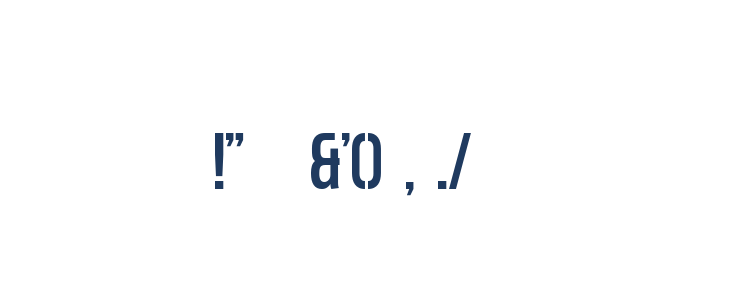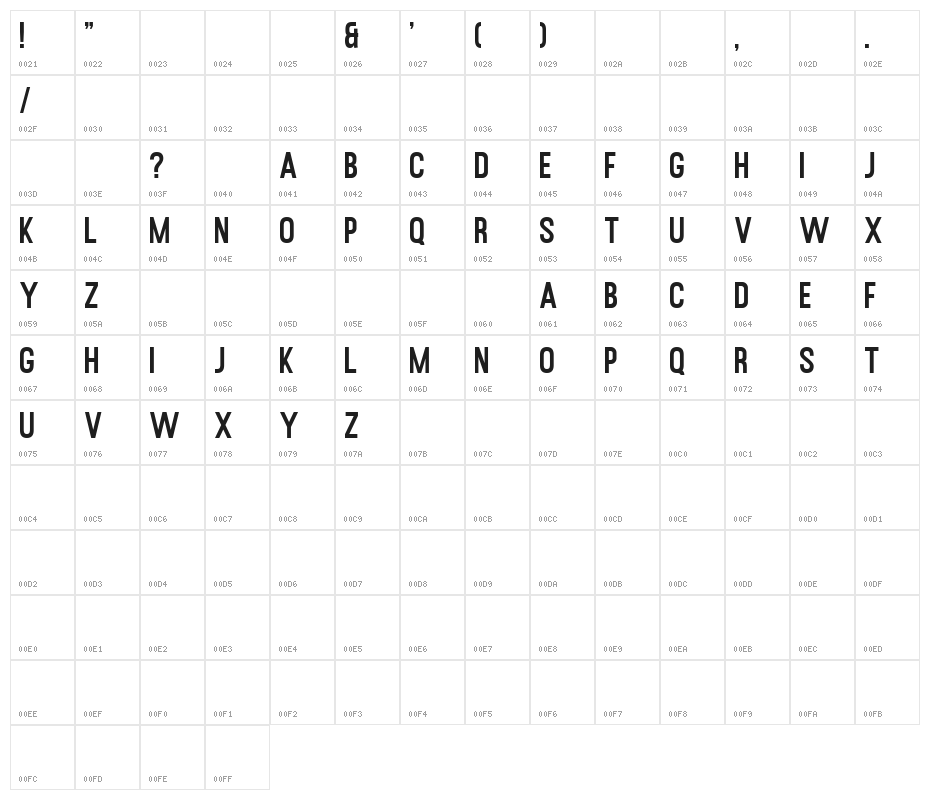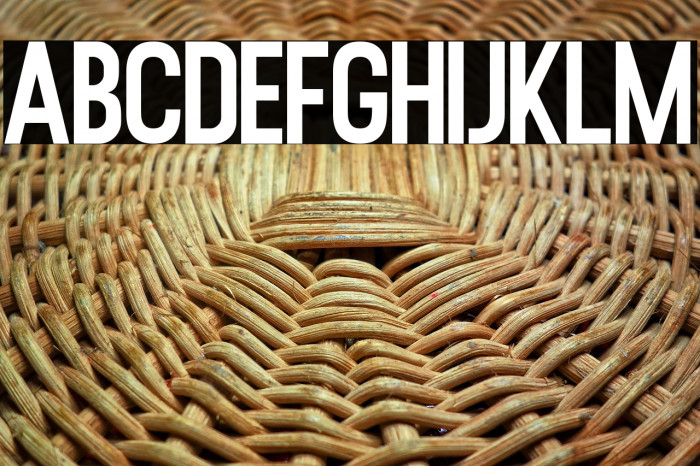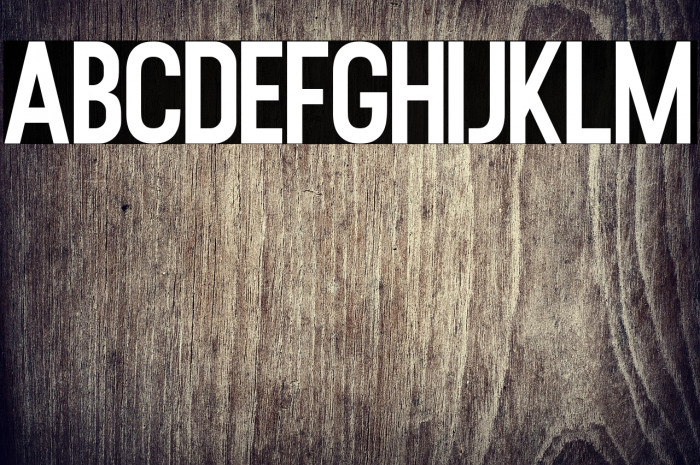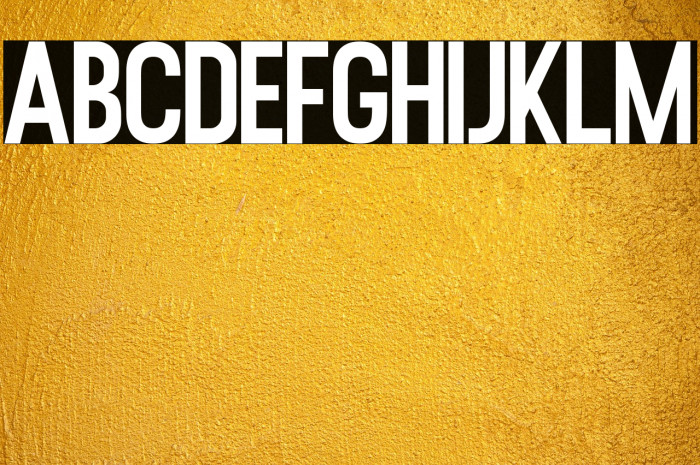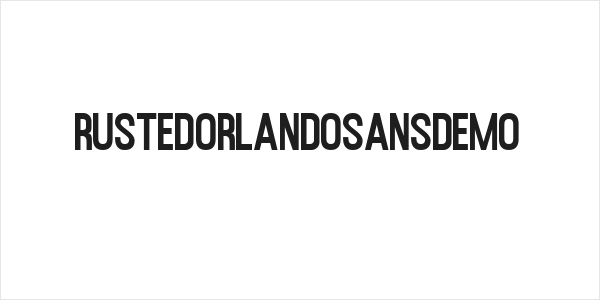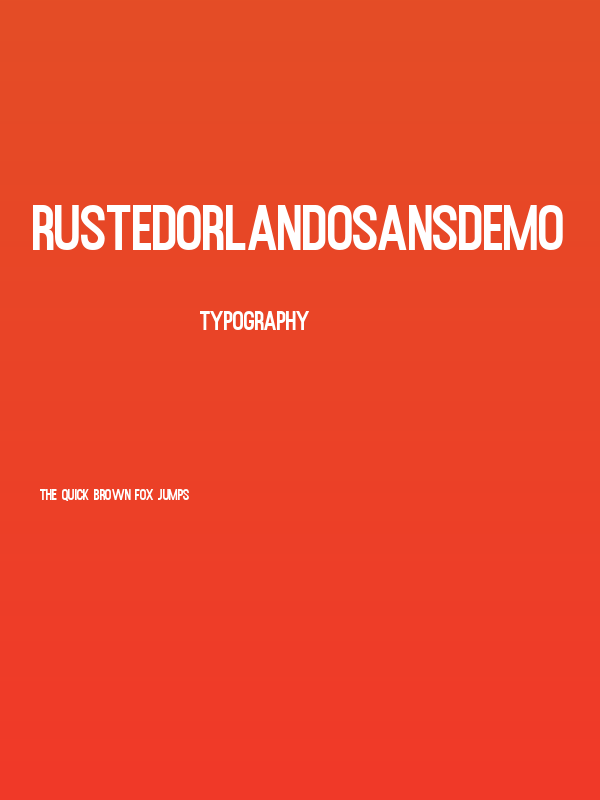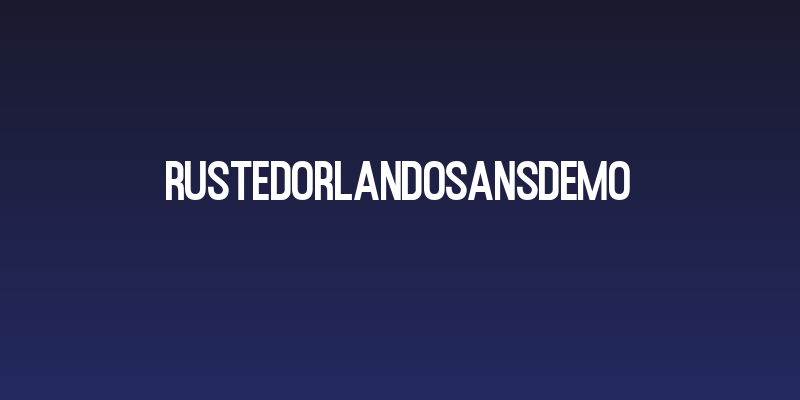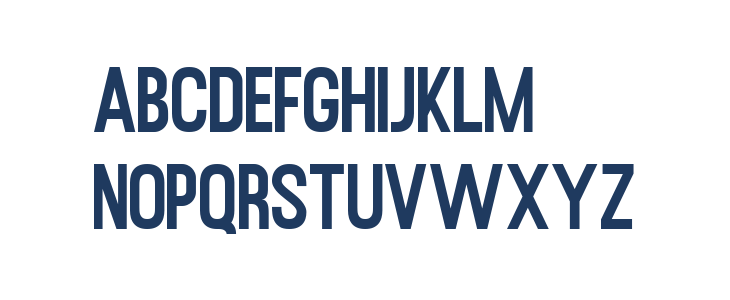
RustedOrlandoSansDemo Font
RustedOrlandoSansDemo Description
This font features a bold and modern sans-serif style with a strong presence. The characters are uniformly thick, providing a consistent and impactful look. The uppercase letters are tall and commanding, while the lowercase letters maintain a similar width, ensuring readability and balance. The numbers are clear and straightforward, matching the overall bold aesthetic. Special characters are distinct and well-integrated, making them suitable for various design applications. The font's clean lines and lack of serifs give it a contemporary feel, ideal for making statements in headlines or logos.